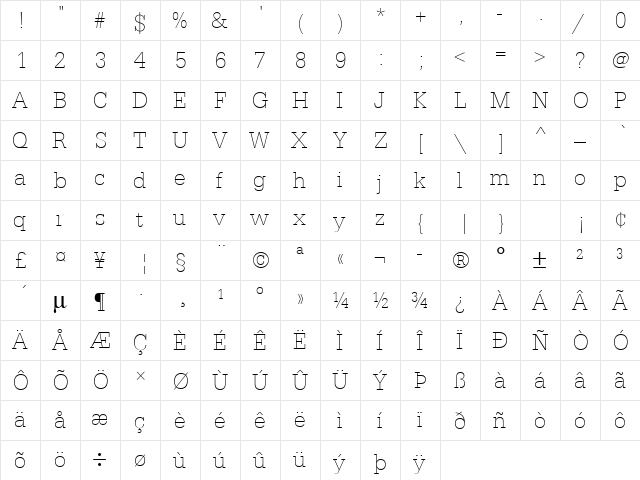
URWEgyptienneTExtLigNar Regular
Design Context for URWEgyptienneTExtLigNar Typeface
URWEgyptienneTExtLigNar takes a measured approach to typography — its balanced proportions and neutral character make it a reliable workhorse for both digital and print work.